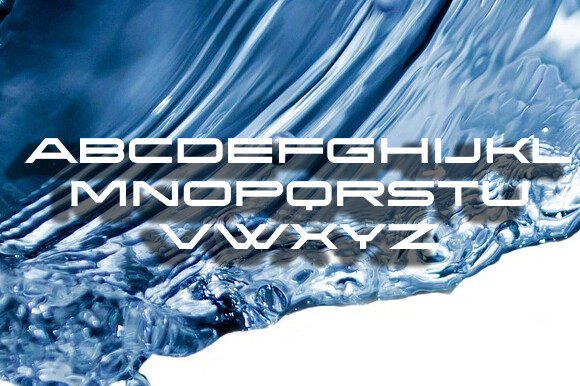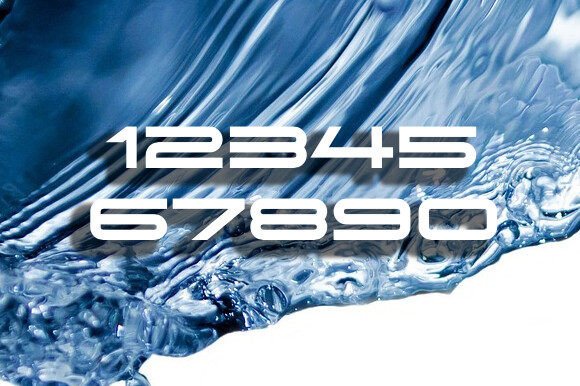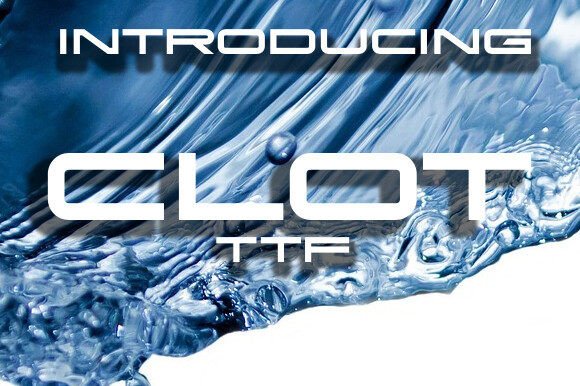
Introducing Clot Font: Elevate Your Designs with Style
Are you tired of using the same old fonts in your designs? Look no further! Clot Font is here to revolutionize the way you create. This stylish font is perfect for designers and crafters who want to take their work to the next level. In this article, we’ll dive into the world of Clot Font and explore its features, benefits, and uses.
What is Clot Font?
Clot Font is a modern, sleek, and sophisticated font designed to make a statement. Its unique style and versatility make it perfect for a wide range of design projects, from posters and flyers to t-shirts and social media graphics. With Clot Font, you can add a touch of elegance and sophistication to your designs, setting them apart from the rest.
Key Features of Clot Font
- Unique Style: Clot Font boasts a distinctive style that will make your designs stand out from the crowd.
- Versatility: Use Clot Font on various design projects, including posters, flyers, t-shirts, social media graphics, and more.
- High-Quality: Clot Font is a high-quality font, ensuring crisp and clear rendering on various devices and platforms.
Benefits of Using Clot Font
So, why choose Clot Font for your designs? Here are just a few benefits:
- Enhance Your Brand: Clot Font can help you create a consistent brand image, making your designs instantly recognizable.
- Increase Engagement: The stylish and modern design of Clot Font is sure to grab attention and engage your audience.
- Stand Out from the Crowd: With Clot Font, you can differentiate your designs from others and establish a unique visual identity.
Uses of Clot Font
The possibilities are endless with Clot Font! Here are some ideas to get you started:
- Posters and Flyers: Create eye-catching posters and flyers that grab attention and convey your message effectively.
- T-Shirts and Merchandise: Use Clot Font on t-shirts, hoodies, and other merchandise to create stylish and wearable designs.
- Social Media Graphics: Elevate your social media presence with stunning graphics featuring Clot Font.
- Logos and Branding: Use Clot Font to create a unique and memorable logo that represents your brand.
Tips for Using Clot Font
To get the most out of Clot Font, here are some tips to keep in mind:
- Experiment with Colors: Try pairing Clot Font with different colors to create a unique and eye-catching design.
- Play with Sizes: Experiment with different font sizes to create visual hierarchy and emphasis.
- Mix and Match: Combine Clot Font with other fonts to create a unique and interesting design.